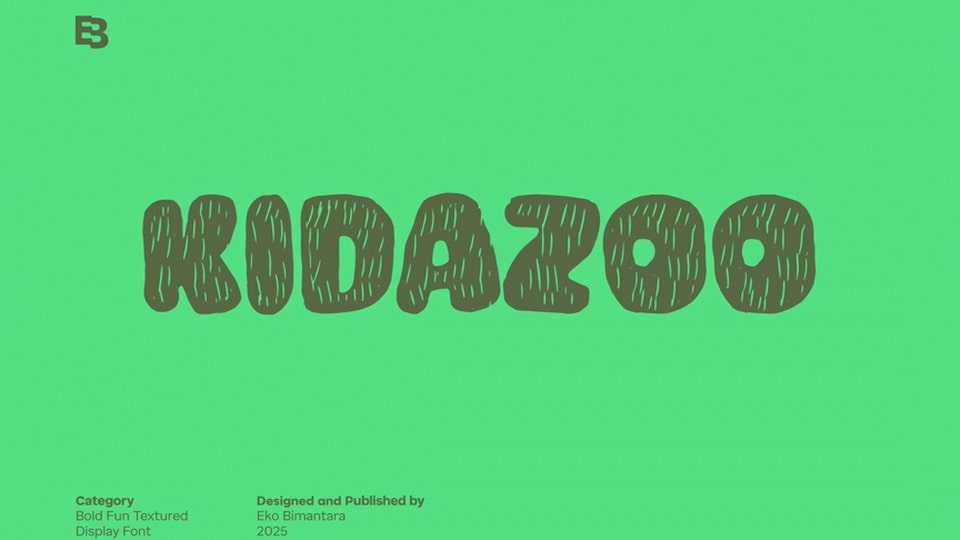
Download Kidazoo font, a bold, playful display typeface bursting with texture and personality, designed with chunky shapes and lively scratch-like details.